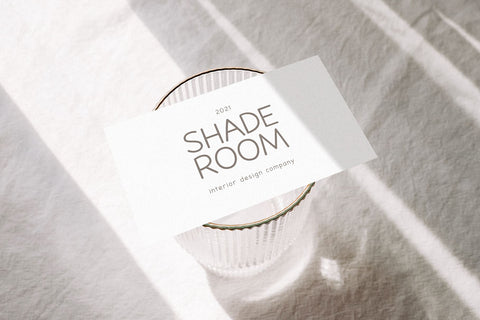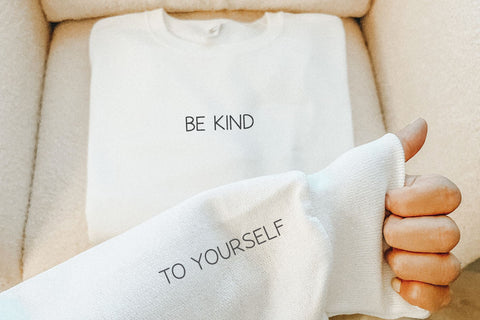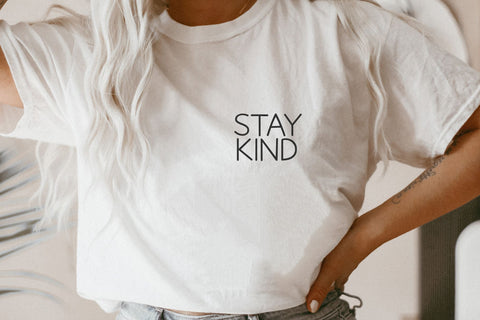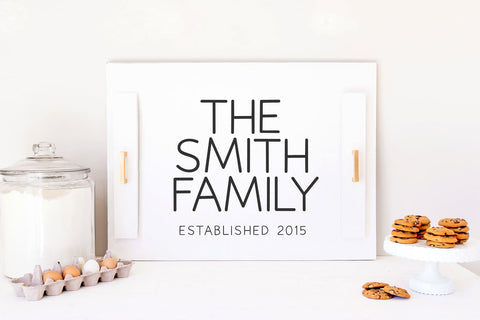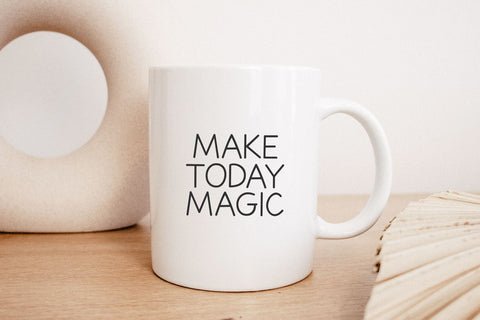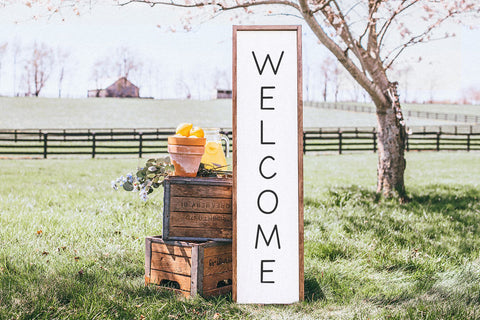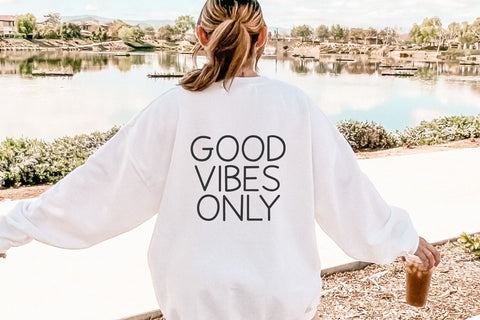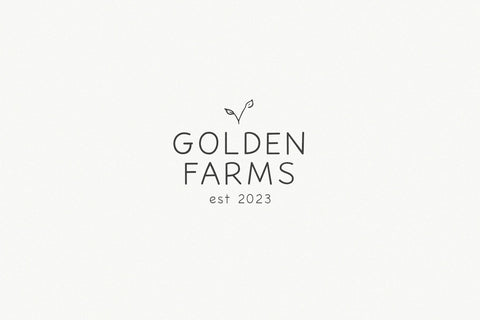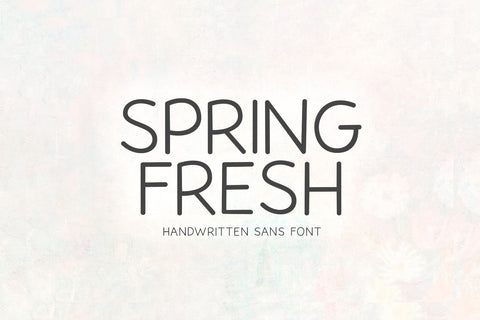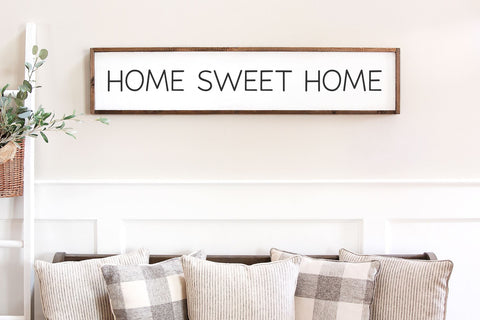
Spring Fresh - Handwritten Sans Font
Spring Fresh is a simple handwritten font.
This font is perfect for farmhouse designs, signs, logos, shirts, quotes, goodnotes, teachers, crafts and more!